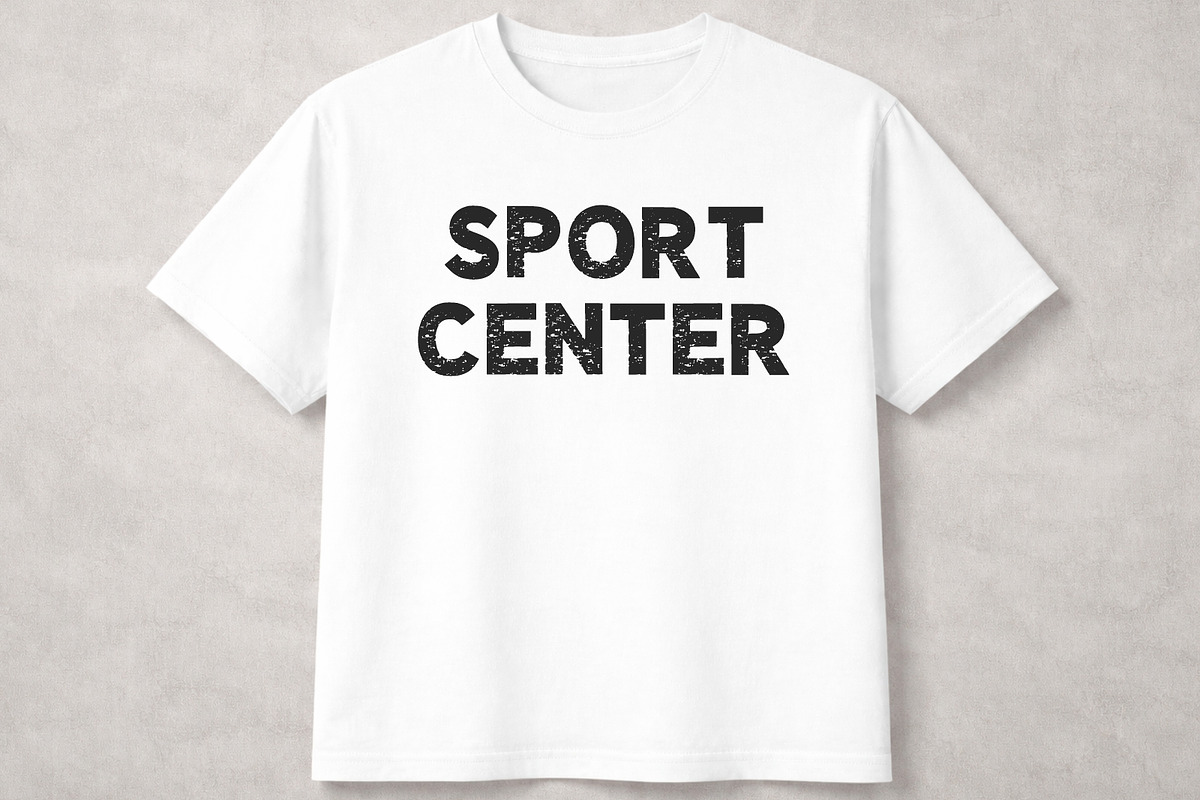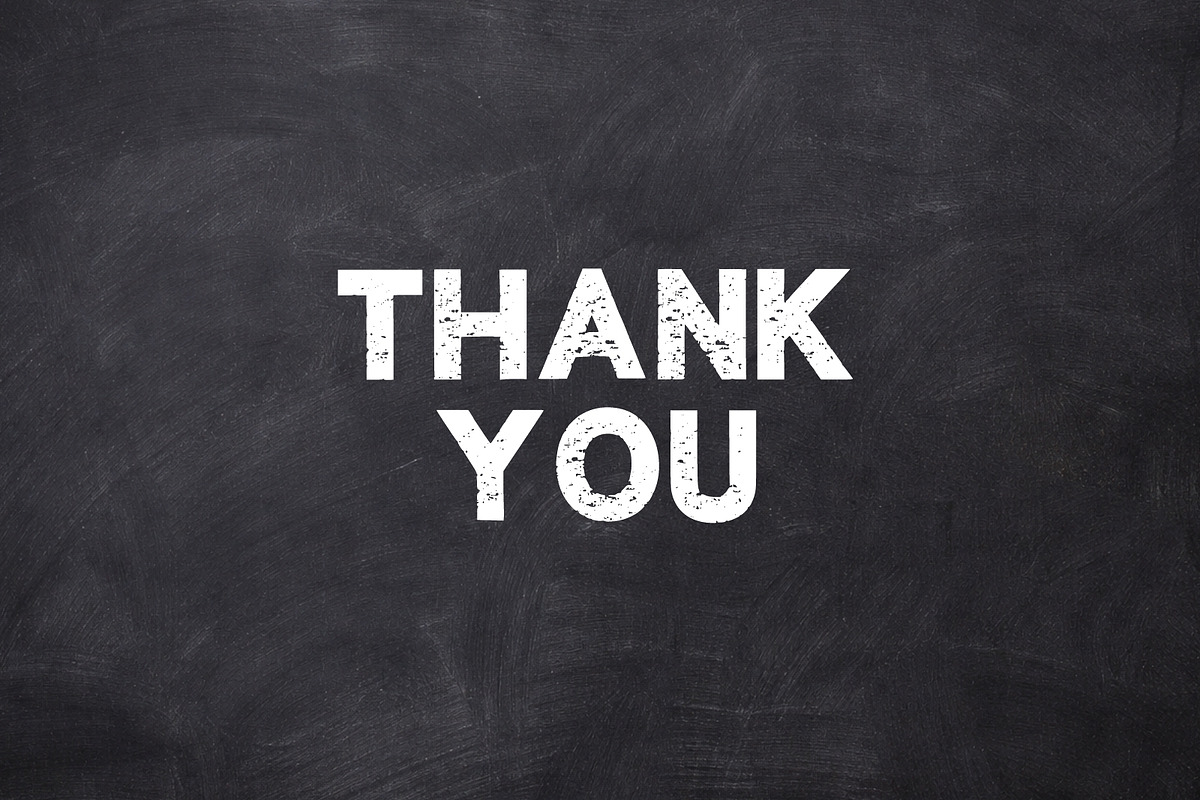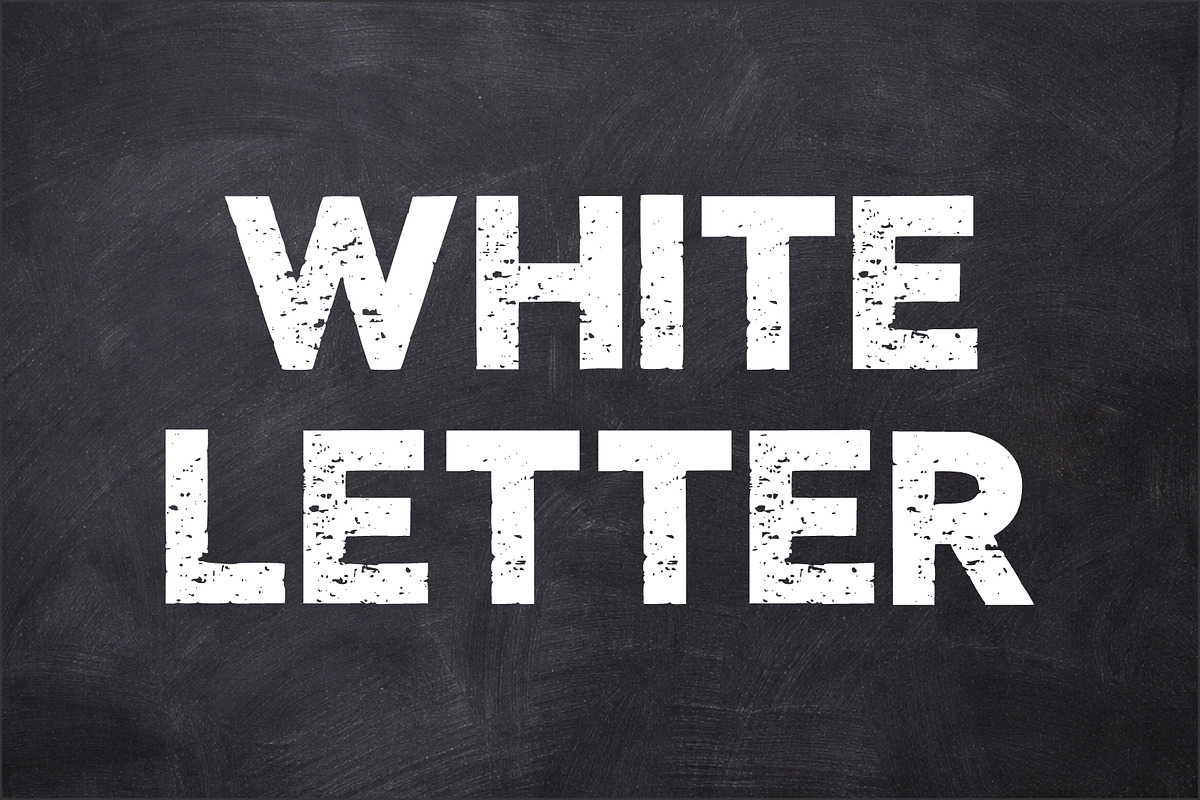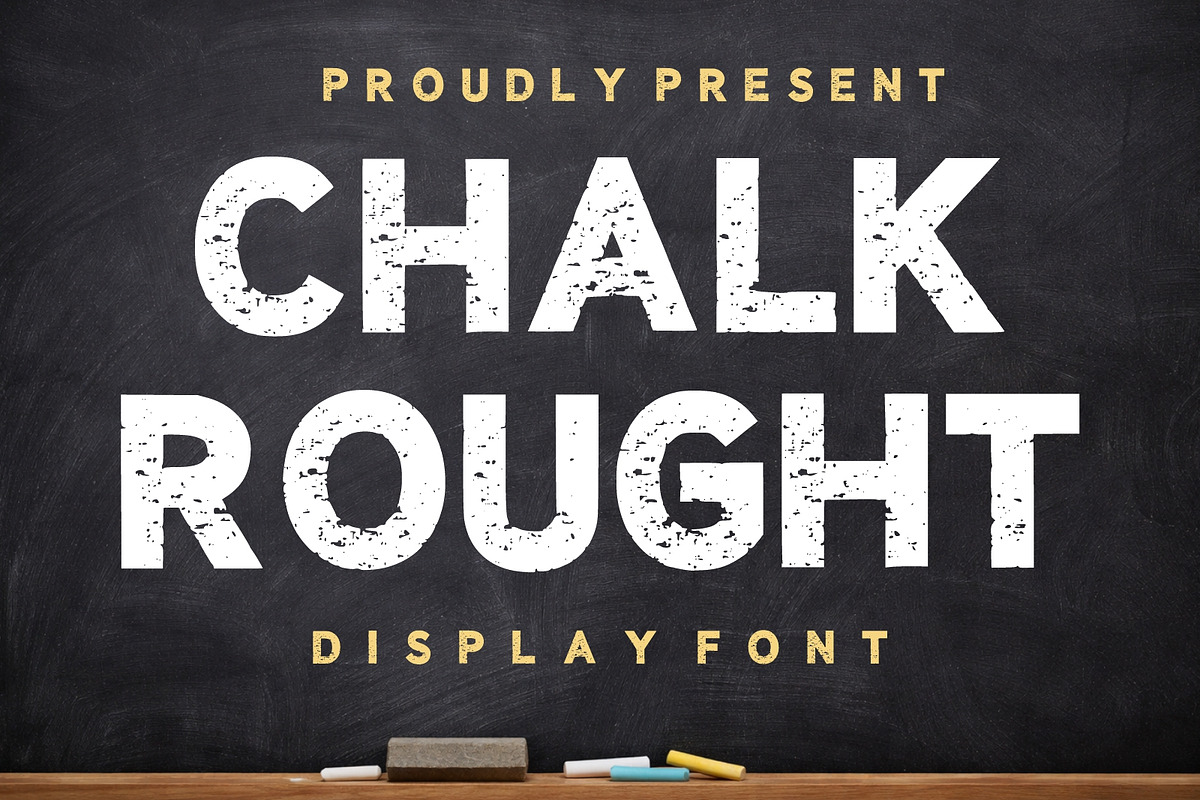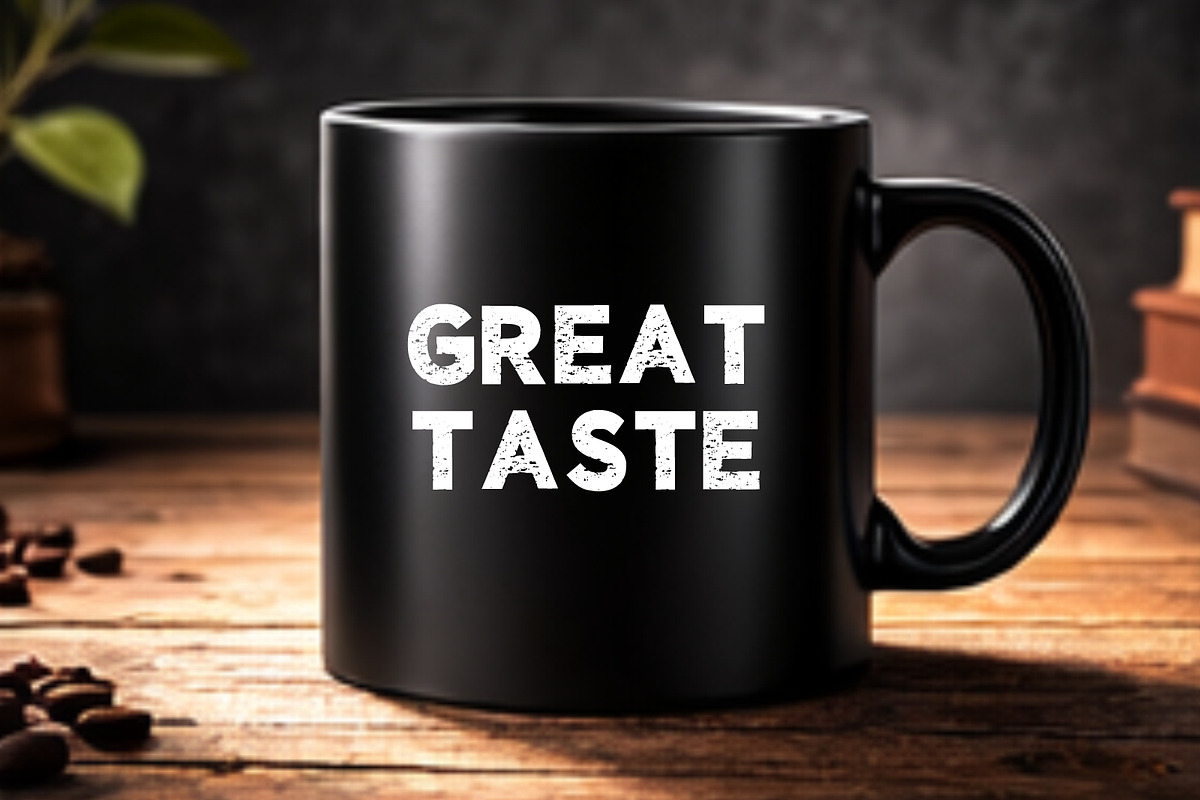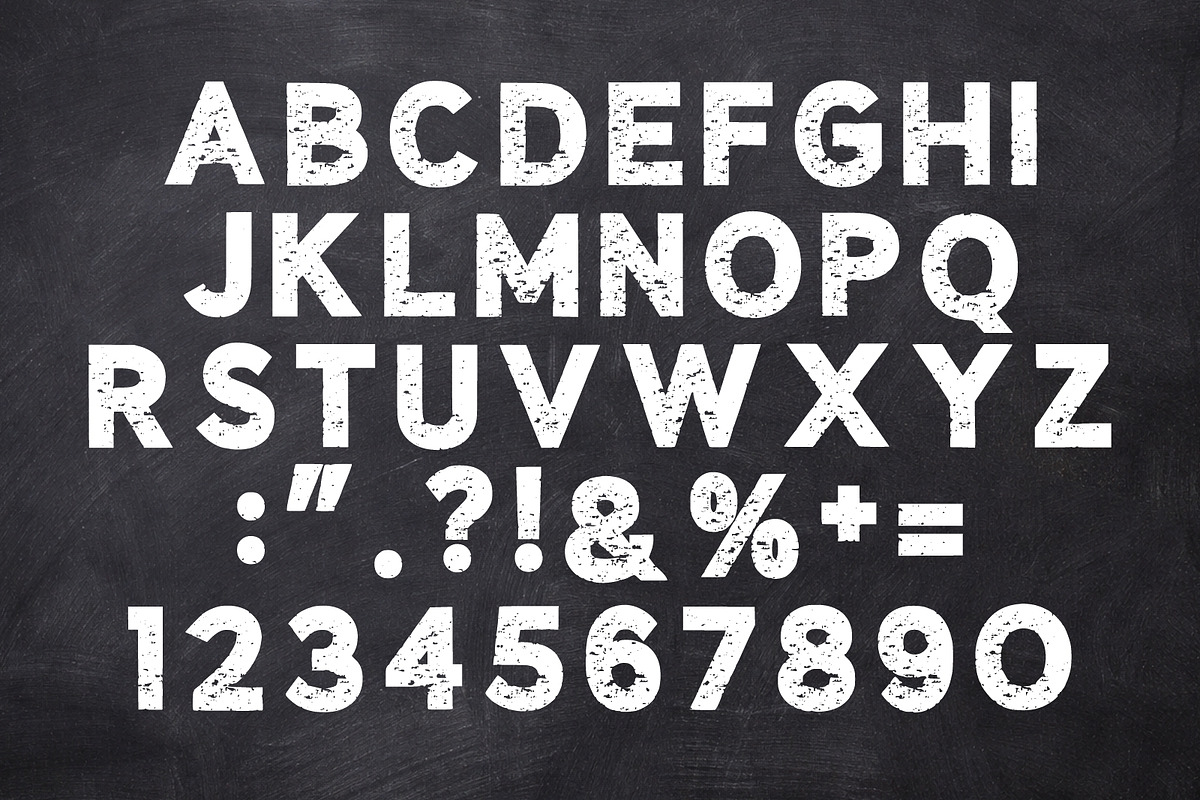
Chalk Rough–Distressed Display Font
Chalk Rough is a bold and authentic distressed display font inspired by vintage chalkboard lettering, hand-painted signs, and rustic typography. Featuring a naturally worn texture, rough edges, and strong character shapes, this font delivers a handcrafted look that instantly adds personality and charm to any design project.
Designed for creators who love vintage aesthetics and authentic imperfections, Chalk Rough brings a realistic chalk-like appearance that works beautifully for logos, branding, packaging, posters, restaurant menus, café signage, school-themed projects, event promotions, apparel designs, and social media graphics. Its bold structure ensures excellent readability while maintaining a rugged and artistic style.
Whether you're creating rustic branding, farmhouse-inspired designs, retro advertisements, handmade product labels, educational materials, or vintage-inspired merchandise, Chalk Rough provides the perfect balance between bold impact and handcrafted authenticity. The distressed texture gives every word a unique personality, helping your designs stand out with a timeless, creative, and professional look.
Perfect for designers, crafters, business owners, and content creators looking to add a vintage chalkboard feel to their projects, Chalk Rough transforms ordinary text into eye-catching visual statements. Bring warmth, nostalgia, and handcrafted character to your next creative project with this versatile distressed display font.